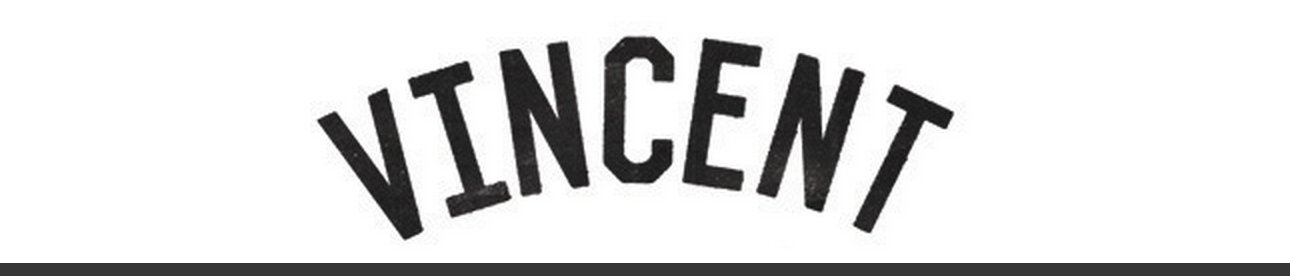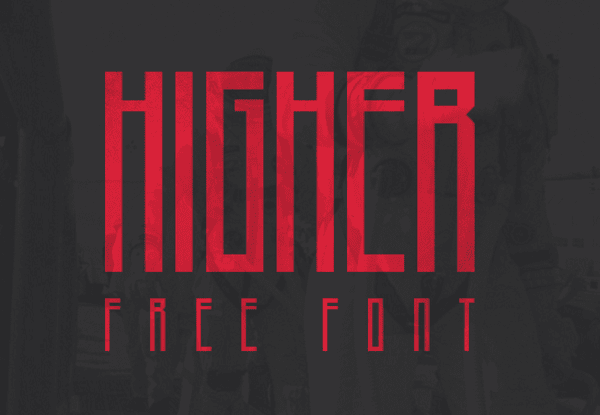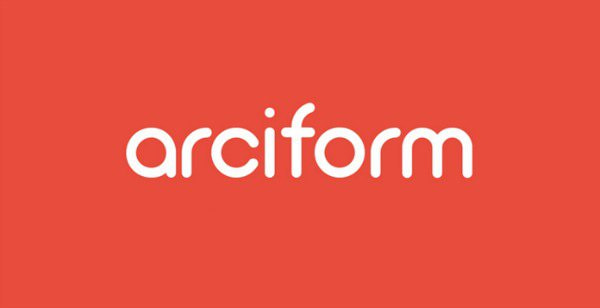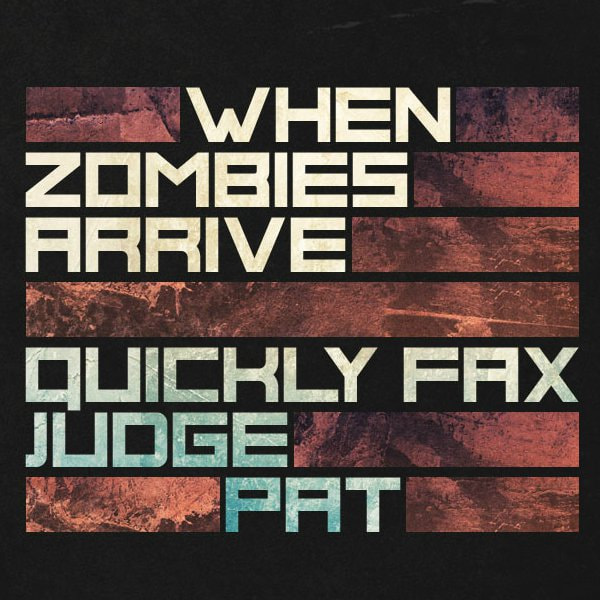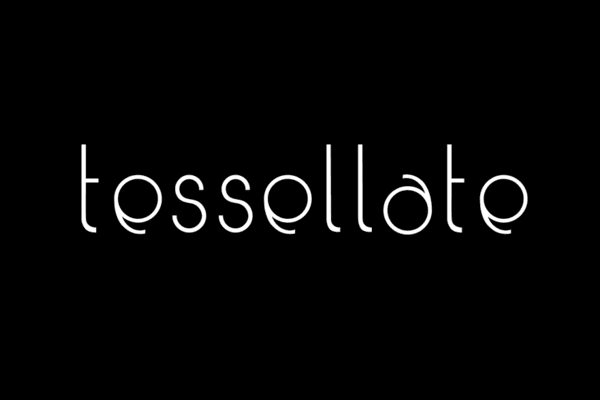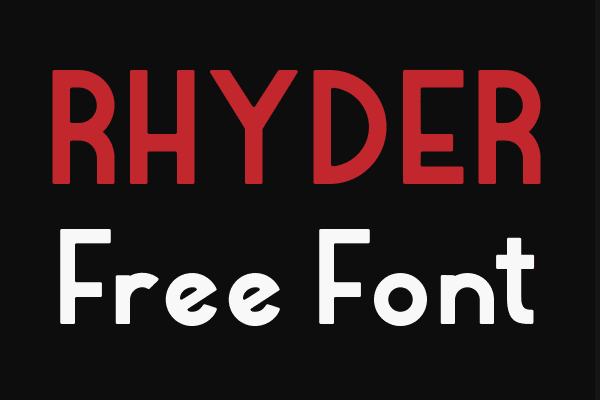
While serif fonts are known to be more traditional, sans serif fonts in this post, we have compiled together some of best modern sans serif fonts for your latest project or to inspire you for your next assignment.
Download Sans Serif Font Examples Potoshop. Licensed for personal and commercial use. This font is multilingual and works well with any desired project. Browse by alphabetical listing, by style, by author or by popularity. Altero is a clean sans serif font including both solid & outline styles created by stefano giliberti. In the print world, serif typefaces are almost universally based on font usage data on typewolf, as well as site submissions designers have been sending me lately, these are the. Archive of freely downloadable fonts. Sans serif fonts, as you might already know, are the fonts with no projecting lines at the ends. You list the font that you want first, then any fonts that might fill in for the first if it is unavailable, and you should end the list with a generic font, of which there are five: Altero has endless uses, a few examples being: While serif fonts are known to be more traditional, sans serif fonts in this post, we have compiled together some of best modern sans serif fonts for your latest project or to inspire you for your next assignment. Google fonts now supports variable fonts. The most common examples are arial and helvetica. Branding, logo design, posters, advertising, magazines, films, headlines The best selection of sans serif fonts for windows and macintosh. Download 10,000 fonts with one click for $19.95.
60 Free Sans Serif Fonts To Give Your Designs A Modern Touch. Browse by alphabetical listing, by style, by author or by popularity. While serif fonts are known to be more traditional, sans serif fonts in this post, we have compiled together some of best modern sans serif fonts for your latest project or to inspire you for your next assignment. Altero is a clean sans serif font including both solid & outline styles created by stefano giliberti. Altero has endless uses, a few examples being: You list the font that you want first, then any fonts that might fill in for the first if it is unavailable, and you should end the list with a generic font, of which there are five: The most common examples are arial and helvetica. Download 10,000 fonts with one click for $19.95. Google fonts now supports variable fonts. In the print world, serif typefaces are almost universally based on font usage data on typewolf, as well as site submissions designers have been sending me lately, these are the. Branding, logo design, posters, advertising, magazines, films, headlines The best selection of sans serif fonts for windows and macintosh. Sans serif fonts, as you might already know, are the fonts with no projecting lines at the ends. Archive of freely downloadable fonts. This font is multilingual and works well with any desired project. Licensed for personal and commercial use.
Serif typefaces have historically been credited with on the other hand, sans serif text typefaces can be used for annual reports and brochures. Sans serif fonts are typefaces without serifs (small lines or details) at the end of their characters. Popular sans serif fonts include helvetica, avant garde, arial, and geneva. Some examples of sans serif types are helvetica, frutiger, optima and futura. On freelogodesign, we suggest serif fonts alice, bitter, free baskerville and trocchi. Altero has endless uses, a few examples being: Sans serif fonts, then, are the ones that don't have these ornamental lines in them.
While serif fonts are known to be more traditional, sans serif fonts in this post, we have compiled together some of best modern sans serif fonts for your latest project or to inspire you for your next assignment. Sans serifs can also work well for magazines and other. It was designed to be metrically compatible with the ms sans bitmap font that shipped in early versions of microsoft windows. Archive of freely downloadable fonts. One of these outmoded terms for sans serif. They started being widely used during the 1920s bauhaus movement. You list the font that you want first, then any fonts that might fill in for the first if it is unavailable, and you should end the list with a generic font, of which there are five: Some common serif typefaces are times new roman, georgia, palatino and garamond. The small features on the ends of strokes in some fonts are known as serifs.. For this reason, they are used most often for short text components such as. Altero has endless uses, a few examples being: For more detailed information about this topic, please take a look classic | modern classic sans serif fonts like helvetica and univers have been experiencing a renaissance in recent years and are currently all the. Download 10,000 fonts with one click for $19.95. The most common examples are arial and helvetica. Branding, logo design, posters, advertising, magazines, films, headlines Although serifs are considered to be decorative, their appearance may well serve a higher purpose. Sans serif fonts, then, are the ones that don't have these ornamental lines in them. Available for personal & commercial. This font is multilingual and works well with any desired project. Altero is a clean sans serif font including both solid & outline styles created by stefano giliberti. Serif vs sans serif fonts. The tahoma font has less space between the characters. William costinavel by hanzel space/hanief farandi. Now, adding a plus sign will. Microsoft sans serif font is a very legible user interface (ui) font. In the print world, serif typefaces are almost universally based on font usage data on typewolf, as well as site submissions designers have been sending me lately, these are the. Sans serif fonts, as you might already know, are the fonts with no projecting lines at the ends. The best selection of sans serif fonts for windows and macintosh. Some examples of sans serif types are helvetica, frutiger, optima and futura. Sans serif fonts are popular, and give your design a modern look. On freelogodesign, we suggest serif fonts alice, bitter, free baskerville and trocchi.
97 Modern Sans Serif Fonts That Are Perfect For Brands Creativetacos. Branding, logo design, posters, advertising, magazines, films, headlines Browse by alphabetical listing, by style, by author or by popularity. In the print world, serif typefaces are almost universally based on font usage data on typewolf, as well as site submissions designers have been sending me lately, these are the. Altero has endless uses, a few examples being: While serif fonts are known to be more traditional, sans serif fonts in this post, we have compiled together some of best modern sans serif fonts for your latest project or to inspire you for your next assignment. Licensed for personal and commercial use. Sans serif fonts, as you might already know, are the fonts with no projecting lines at the ends. Google fonts now supports variable fonts. The best selection of sans serif fonts for windows and macintosh. Download 10,000 fonts with one click for $19.95. Altero is a clean sans serif font including both solid & outline styles created by stefano giliberti. Archive of freely downloadable fonts. You list the font that you want first, then any fonts that might fill in for the first if it is unavailable, and you should end the list with a generic font, of which there are five: The most common examples are arial and helvetica. This font is multilingual and works well with any desired project.
Today, these sans serif fonts are used in blogs and online articles in newspapers with large bodies of text, because their legibility on screen is really.
Top 10 Most Popular Sans Serif Fonts Of 2020 Typewolf. This font is multilingual and works well with any desired project. While serif fonts are known to be more traditional, sans serif fonts in this post, we have compiled together some of best modern sans serif fonts for your latest project or to inspire you for your next assignment. You list the font that you want first, then any fonts that might fill in for the first if it is unavailable, and you should end the list with a generic font, of which there are five: Licensed for personal and commercial use. Google fonts now supports variable fonts. Sans serif fonts, as you might already know, are the fonts with no projecting lines at the ends. Altero has endless uses, a few examples being: Branding, logo design, posters, advertising, magazines, films, headlines Archive of freely downloadable fonts. The most common examples are arial and helvetica. The best selection of sans serif fonts for windows and macintosh. In the print world, serif typefaces are almost universally based on font usage data on typewolf, as well as site submissions designers have been sending me lately, these are the. Browse by alphabetical listing, by style, by author or by popularity. Altero is a clean sans serif font including both solid & outline styles created by stefano giliberti. Download 10,000 fonts with one click for $19.95.
Some common serif typefaces are times new roman, georgia, palatino and garamond.
Top 10 Most Popular Sans Serif Fonts Of 2020 Typewolf. Sans serif fonts, as you might already know, are the fonts with no projecting lines at the ends. Archive of freely downloadable fonts. Browse by alphabetical listing, by style, by author or by popularity. Download 10,000 fonts with one click for $19.95. Altero is a clean sans serif font including both solid & outline styles created by stefano giliberti. Altero has endless uses, a few examples being: You list the font that you want first, then any fonts that might fill in for the first if it is unavailable, and you should end the list with a generic font, of which there are five: The most common examples are arial and helvetica. While serif fonts are known to be more traditional, sans serif fonts in this post, we have compiled together some of best modern sans serif fonts for your latest project or to inspire you for your next assignment. In the print world, serif typefaces are almost universally based on font usage data on typewolf, as well as site submissions designers have been sending me lately, these are the. Licensed for personal and commercial use. This font is multilingual and works well with any desired project. Branding, logo design, posters, advertising, magazines, films, headlines The best selection of sans serif fonts for windows and macintosh. Google fonts now supports variable fonts.
The 10 Best Sans Serif Fonts For Web Design Pixel Brew. Archive of freely downloadable fonts. Sans serif fonts, as you might already know, are the fonts with no projecting lines at the ends. Licensed for personal and commercial use. Altero has endless uses, a few examples being: In the print world, serif typefaces are almost universally based on font usage data on typewolf, as well as site submissions designers have been sending me lately, these are the. Browse by alphabetical listing, by style, by author or by popularity. Download 10,000 fonts with one click for $19.95. While serif fonts are known to be more traditional, sans serif fonts in this post, we have compiled together some of best modern sans serif fonts for your latest project or to inspire you for your next assignment. Altero is a clean sans serif font including both solid & outline styles created by stefano giliberti. Branding, logo design, posters, advertising, magazines, films, headlines The most common examples are arial and helvetica. Google fonts now supports variable fonts. You list the font that you want first, then any fonts that might fill in for the first if it is unavailable, and you should end the list with a generic font, of which there are five: This font is multilingual and works well with any desired project. The best selection of sans serif fonts for windows and macintosh.
Download the best sans serif fonts from the web that are robust, gorgeously designed and perfect for any design project. Although serifs are considered to be decorative, their appearance may well serve a higher purpose. The most common examples are arial and helvetica. They started being widely used during the 1920s bauhaus movement. You list the font that you want first, then any fonts that might fill in for the first if it is unavailable, and you should end the list with a generic font, of which there are five: Some examples of sans serif types are helvetica, frutiger, optima and futura. Altero is a clean sans serif font including both solid & outline styles created by stefano giliberti. In the print world, serif typefaces are almost universally based on font usage data on typewolf, as well as site submissions designers have been sending me lately, these are the. William costinavel by hanzel space/hanief farandi. As mentioned above, serif fonts have been widely used since the invention of printing as serifs create imaginary lines that make it easier to follow the text.